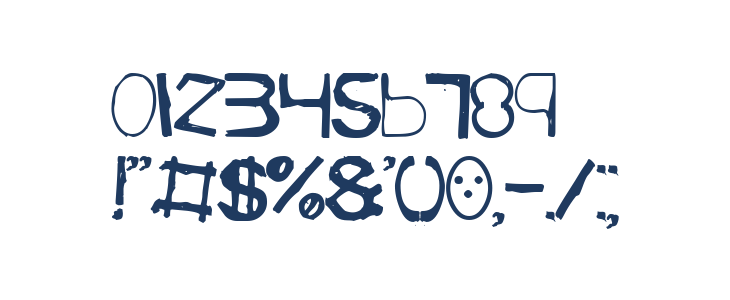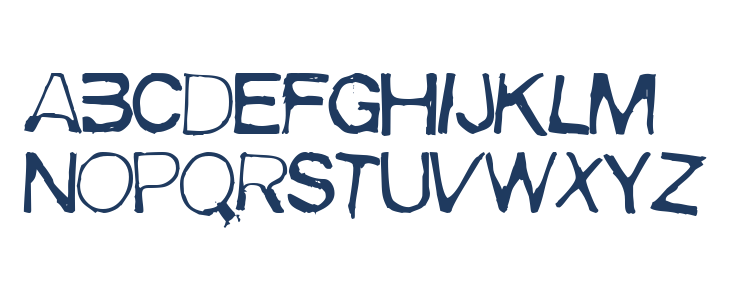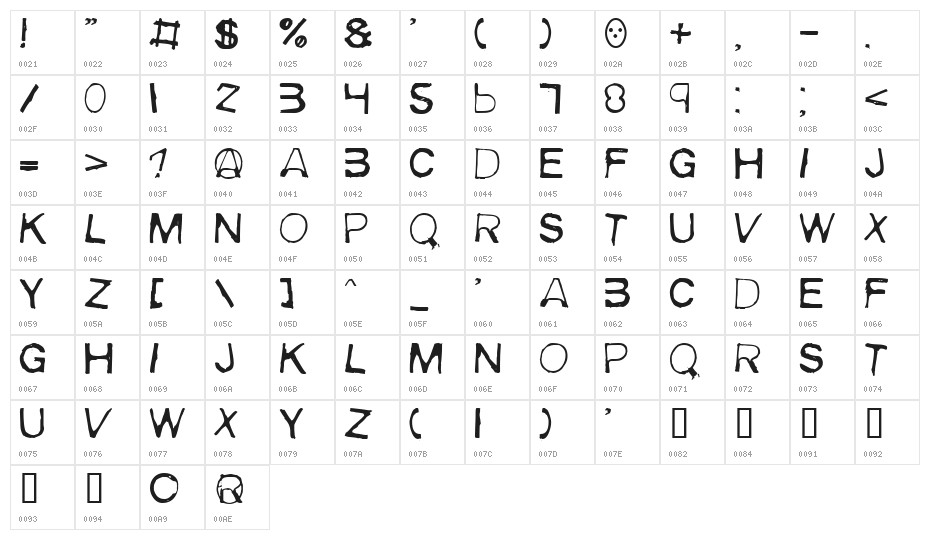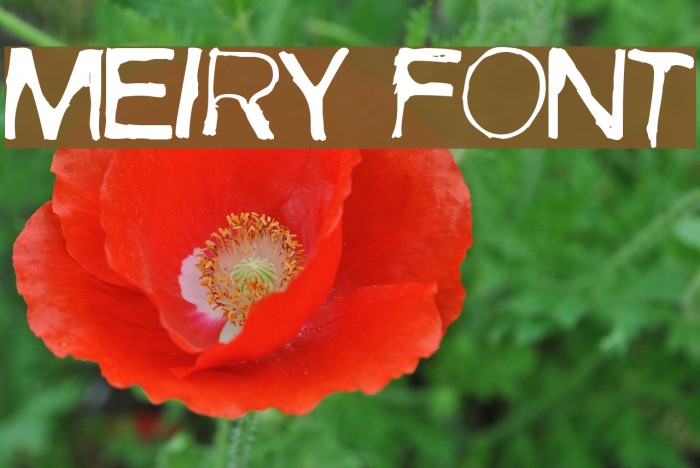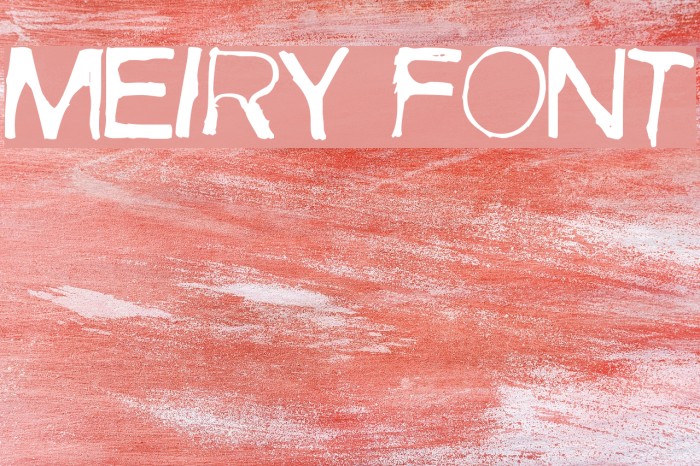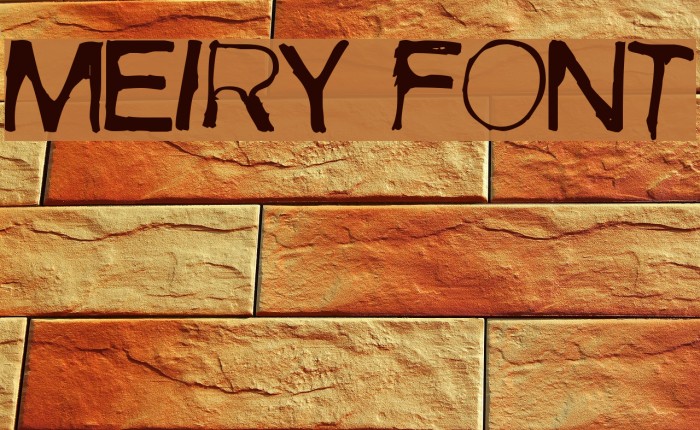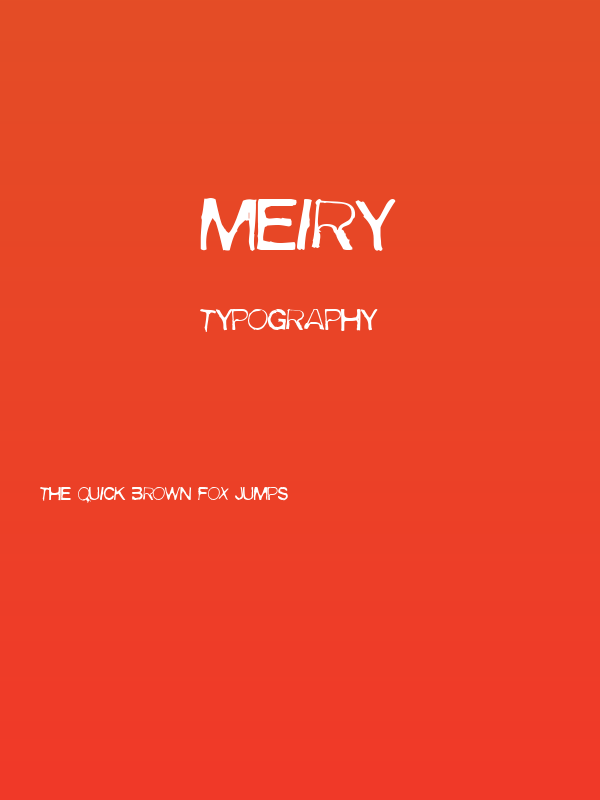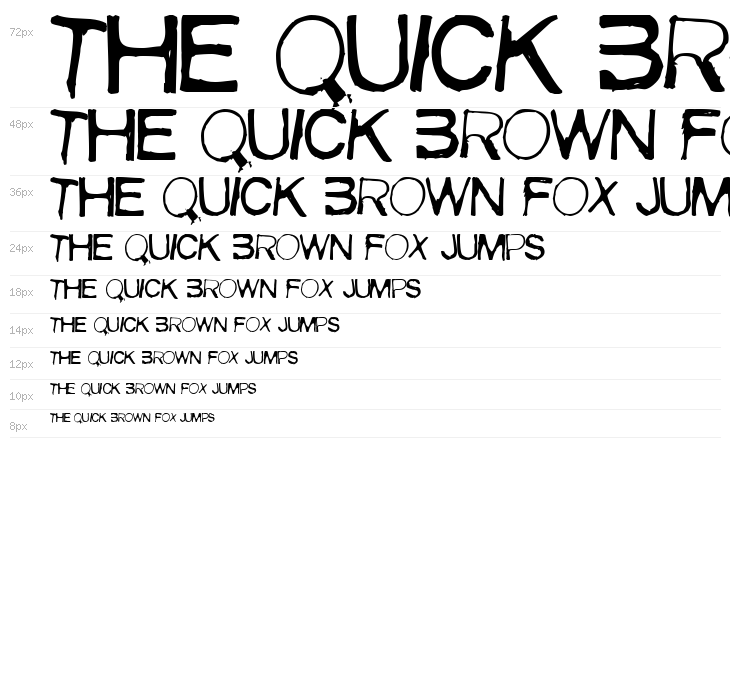
Meiry Font
Meiry Description
This font features a distressed and grungy style, characterized by uneven edges and a hand-drawn appearance. The letters are bold and have a rough texture, giving them an edgy and rebellious look. The uppercase and lowercase letters maintain a consistent style, with some characters appearing slightly tilted or irregular, adding to the chaotic aesthetic. The numbers and special characters follow the same design principles, ensuring a cohesive look across all glyphs. This font is ideal for projects that require a raw, urban feel, such as music album covers, street art, or edgy branding.
| Overall Style | Grunge, Urban, Edgy |
| Proposed Projects | Ideal for music album covers, street art, edgy branding, and rebellious-themed designs. |